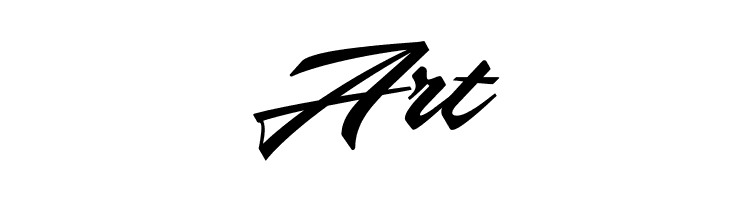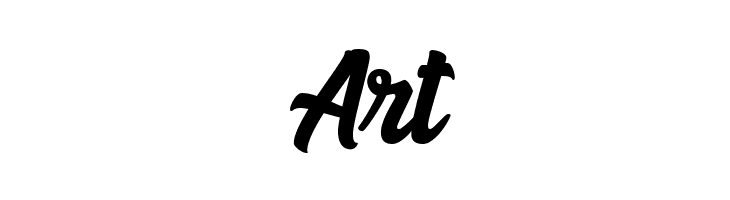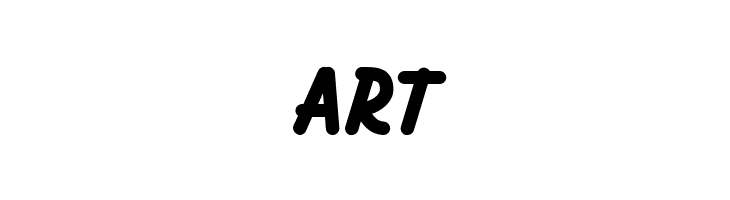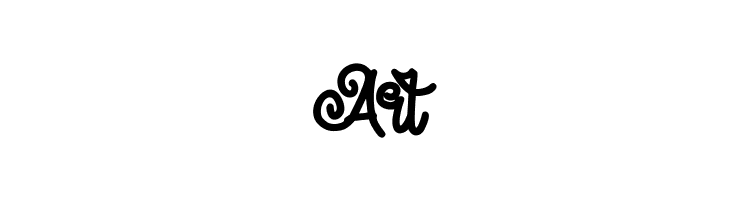
A bold, angular font with a modern geometric style.
A playful, bold font with rounded, hand-drawn characters.
A playful, bold, hand-drawn font with a cartoonish, energetic style.
A playful, dynamic handwritten font with fluid strokes and elegant movement.
A playful, bold font with rounded, hand-drawn style characters.
A bold, rounded, and playful font with a friendly, informal style.
A playful, bold, and hand-drawn font with a whimsical style.
A bold, textured font with a vintage, handcrafted look.
A playful, bold handwritten font with rounded strokes and a casual style.
A modern, geometric sans-serif font with rounded edges and uniform stroke width.
A modern, geometric font with rounded edges and consistent spacing.
A bold, playful handwritten font with smooth, rounded edges.
A bold, playful handwritten font with thick, rounded strokes.
A bold, edgy font with sharp, angular lines and a graffiti-like aesthetic.
A bold, dynamic script font with a playful and energetic style.
A playful, hand-drawn font with bold, irregular strokes and quirky shapes.
A playful, bold font with rounded, whimsical letterforms.
A bold, playful handwritten font with dynamic, expressive letterforms.
A playful, bold, and handwritten-style font with rounded characters.
A playful, hand-drawn font with bold, irregular strokes and a whimsical style.
A playful, rounded font with a subtle shadow effect, offering a friendly and creative style.
A bold, playful font with rounded and sharp edges, perfect for creative projects.
A whimsical, decorative font with bold, intricate loops and curls.
A playful, handwritten-style font with bold, irregular characters.
A playful, whimsical font with bold, rounded strokes and quirky letterforms.
A bold, geometric font with a sporty, structured appearance.